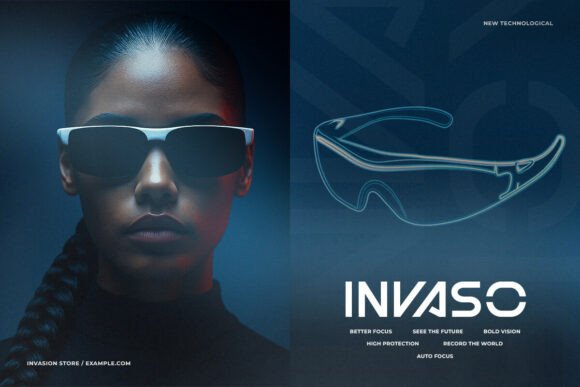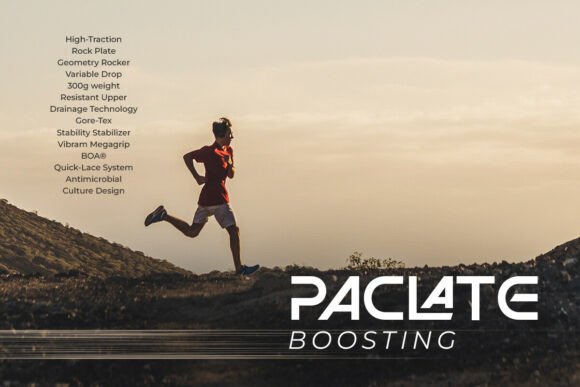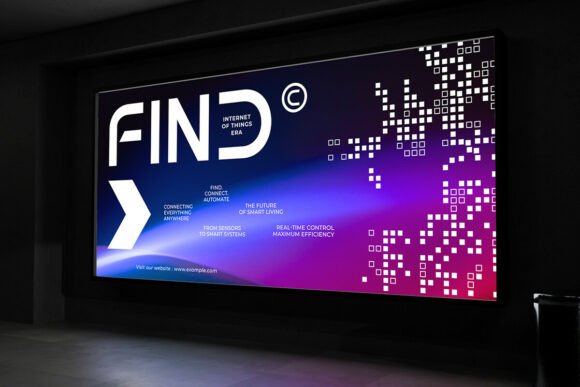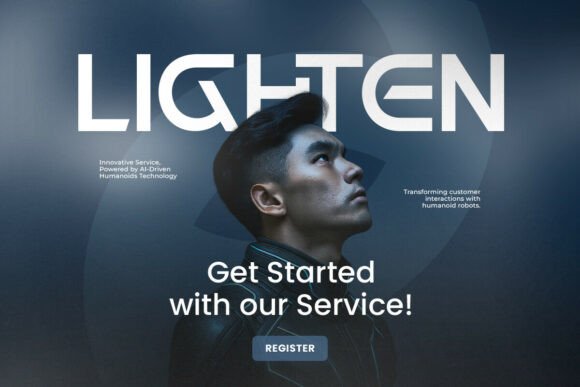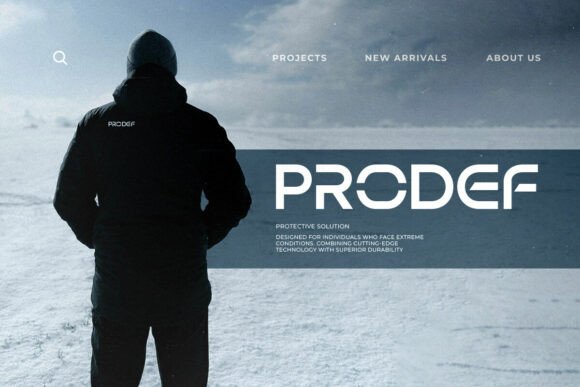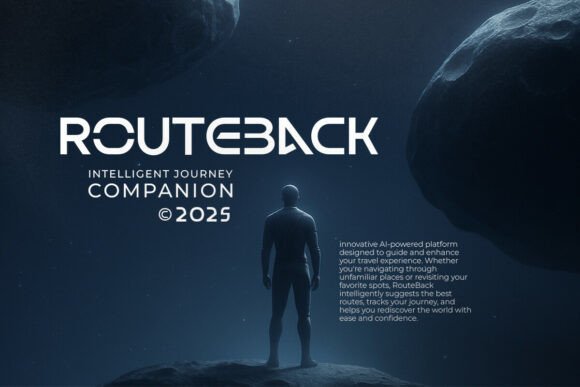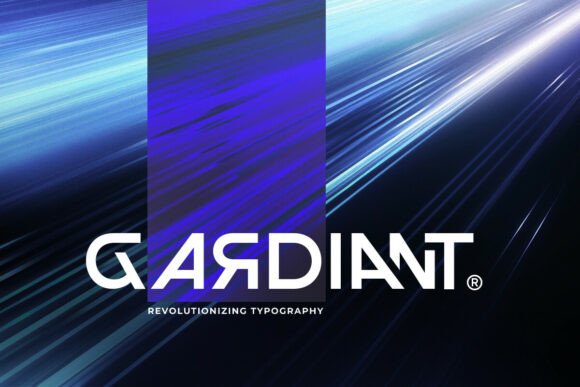
Gardiant Font: Elevate Your Designs with a Futuristic and Modern Logo Font
In the realm of design, fonts play a pivotal role in conveying the essence and aesthetic of a brand or project. For those seeking a font that embodies a futuristic and modern vibe, Gardiant Font emerges as an exceptional choice. This sans-serif font, with its sci-fi looks, is not only versatile but also uniquely stunning, making it suitable for a wide array of applications.
Unleash the Futuristic Appeal of Gardiant Font
Gardiant Font is meticulously crafted to provide a futuristic appeal that can elevate any design project. Its base in sans serif fonts ensures a clean and modern look, which is further enhanced by its sci-fi aesthetic. This makes Gardiant an ideal choice for projects that require a cutting-edge and avant-garde feel.
One of the standout features of Gardiant Font is its versatility. It can be utilized for a multitude of purposes, including:
- Games: Add a futuristic touch to your game logos or titles.
- Logotype: Create memorable and impactful brand logos.
- Tech Startup Logos: Perfect for startups looking to make a technological impact.
- Football Teams: Give your team logo a modern and dynamic look.
- Any Project: Ideal for any creative project that demands a unique and stunning sans serif font.
Stylish Lowercase and Uppercase Combinations
Gardiant Font boasts stylish lowercase letters that, when combined with uppercase letters, create a standout effect. This combination allows designers to play with the visual hierarchy and emphasis within their text, adding depth and interest to their designs.
Enhance with Alternates and Ligatures
To make your project even more eye-catching, Gardiant Font supports alternates and ligatures. These features provide the flexibility to customize your text, making it more unique and engaging. Alternates offer variations of letters that can be used to add a personal touch, while ligatures enable the creation of special character combinations that enhance the visual flow of the text.
Multi-Language Support
In a globalized world, reaching a diverse audience is crucial. Gardiant Font supports multiple languages, making it an excellent choice for international brands or projects aimed at a broad audience. This feature ensures that your design can communicate effectively across different cultures and regions.
Why Choose Gardiant Font?
Choosing Gardiant Font for your design project comes with numerous benefits:
- Unique Aesthetic: Offers a futuristic and sci-fi look that sets your project apart.
- Versatility: Suitable for a wide range of applications, from gaming to tech startups.
- Customization: Features alternates, ligatures, and stylish letterforms for enhanced creativity.
- Multi-Language Support: Enables effective communication across diverse audiences.
Gardiant Font is a powerful tool for designers and crafters looking to infuse their projects with a modern and futuristic aesthetic. Its versatility, combined with its unique features such as stylish lowercase letters, alternates, ligatures, and multi-language support, makes it an invaluable asset for any creative endeavor. Whether you’re working on a game, a tech startup logo, or any project in between, Gardiant Font is poised to elevate your design to new heights.
With Gardiant Font, the possibilities are endless. Its ability to merge modernity with a futuristic appeal, all while offering practical features for customization and versatility, positions it as a top choice for designers worldwide. Dive into the world of Gardiant Font today and discover how it can transform your designs into stunning visual experiences.